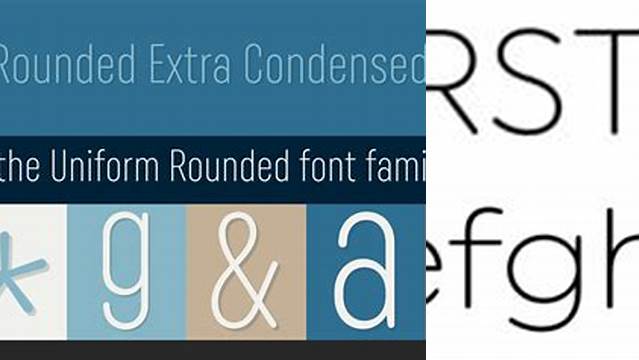
Free Uniform Rounded Light Font: Your Ultimate Guide
Hey guys! Are you on the hunt for a uniform rounded light font that's also free? You've landed in the right spot! In this ultimate guide, we're diving deep into the world of these fonts, exploring what makes them so appealing, where you can find them without spending a dime, and how to use them effectively in your projects. Get ready to elevate your design game with the power of beautifully rounded, lightweight typography!
What Makes Uniform Rounded Light Fonts So Appealing?
Uniform rounded light fonts possess a unique charm that stems from their clean lines, soft curves, and airy feel. These fonts are characterized by their consistent stroke weight and rounded terminals, giving them a friendly and approachable appearance. The "light" aspect refers to the font's weight, meaning the strokes are thin and delicate, contributing to an overall sense of elegance and modernity. The beauty of uniform rounded light fonts lies in their versatility. They work wonders in a wide array of design applications, from website headers and body text to branding materials and print layouts. Their gentle nature makes them particularly well-suited for projects aiming to convey a sense of warmth, clarity, and sophistication.
One of the key reasons designers and creatives gravitate towards uniform rounded light fonts is their readability. The rounded forms are visually pleasing and easy on the eyes, making them ideal for extended reading experiences. The light weight adds to this effect by creating ample whitespace within and between characters, preventing the text from feeling cramped or overwhelming. This makes these fonts an excellent choice for body text in websites, articles, and publications where readability is paramount.
Furthermore, uniform rounded light fonts exude a contemporary aesthetic. Their minimalist design aligns perfectly with modern design trends that emphasize simplicity and clarity. They can instantly inject a touch of sophistication and elegance into any project, making them a go-to option for brands seeking a modern and approachable identity. Whether you're designing a sleek website, a minimalist brochure, or a contemporary logo, these fonts can help you achieve a polished and professional look.
Beyond their aesthetic appeal, uniform rounded light fonts also offer practical benefits. Their clean and simple shapes make them highly legible across various screen sizes and resolutions. This is crucial in today's multi-device world, where your designs need to look great on everything from large desktop monitors to small smartphone screens. The uniform stroke weight ensures that the font remains consistent and readable, regardless of the viewing environment.
Another advantage of using uniform rounded light fonts is their ability to pair well with other typefaces. Their neutral and understated nature allows them to complement a wide range of fonts, from bold sans-serifs to elegant serifs. This gives you the flexibility to create visually interesting and dynamic typographic compositions. For example, you could pair a uniform rounded light font for body text with a bolder, more expressive font for headings to create a clear visual hierarchy.
In conclusion, the appeal of uniform rounded light fonts lies in their blend of aesthetic charm, readability, versatility, and practicality. They offer a winning combination of elegance and approachability, making them a valuable asset in any designer's toolkit. Their contemporary style and clean lines make them a perfect choice for a wide range of projects, ensuring your designs communicate with clarity and sophistication.
Google Fonts: Google Fonts is a massive library of open-source fonts that are free for both personal and commercial use. This is often the first place designers check because of its wide selection, ease of use, and reliable hosting. The platform allows you to easily browse, preview, and download fonts, and even provides code snippets for embedding them directly into your website. To find uniform rounded light fonts, you can use the filters to narrow down your search by font weight (light) and style (rounded). Some popular options on Google Fonts that fit this description include Lato, Open Sans, and Montserrat.
- Exploring Google Fonts for free uniform rounded light fonts is highly recommended because the fonts are optimized for web use, ensuring they load quickly and display correctly across different browsers and devices. You can also easily pair these fonts with other fonts in the Google Fonts library, making it a convenient resource for creating cohesive typographic systems.
Font Squirrel: Font Squirrel is another excellent resource for free fonts, with a focus on fonts that are 100% free for commercial use. This is a crucial distinction, as some font websites offer fonts that are free for personal use only. Font Squirrel meticulously curates its collection, ensuring that all fonts are properly licensed and of high quality. The website also offers a handy Font Identifier tool that can help you identify a font you've seen in an image or design. To find uniform rounded light fonts, you can browse the various categories and tags, or use the search function with relevant keywords.
By embracing the power of uniform rounded light fonts, you can elevate your designs and communicate your message with clarity and style. Remember to explore the free resources available online, experiment with different font pairings, and always prioritize readability and visual hierarchy. With a little creativity and attention to detail, you can harness the unique charm of these fonts to create designs that truly stand out. So go forth, explore, and let your creativity shine with the elegance of uniform rounded light fonts!